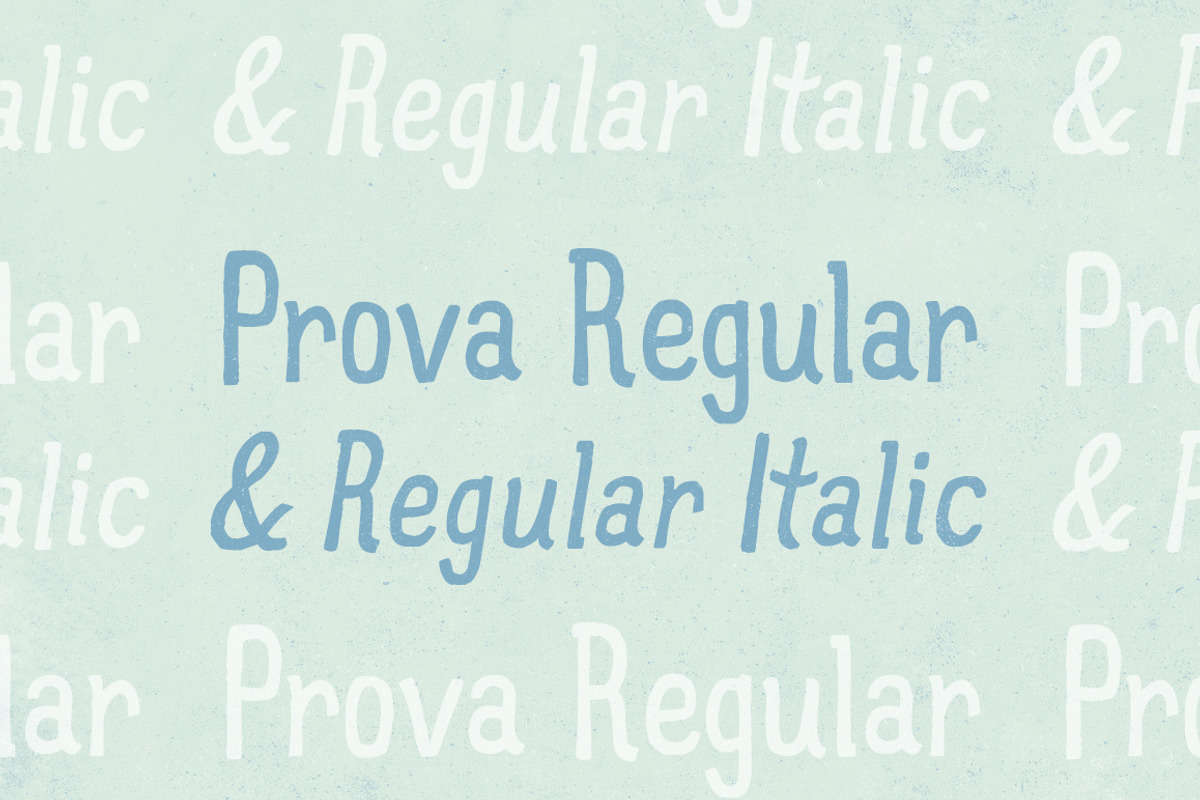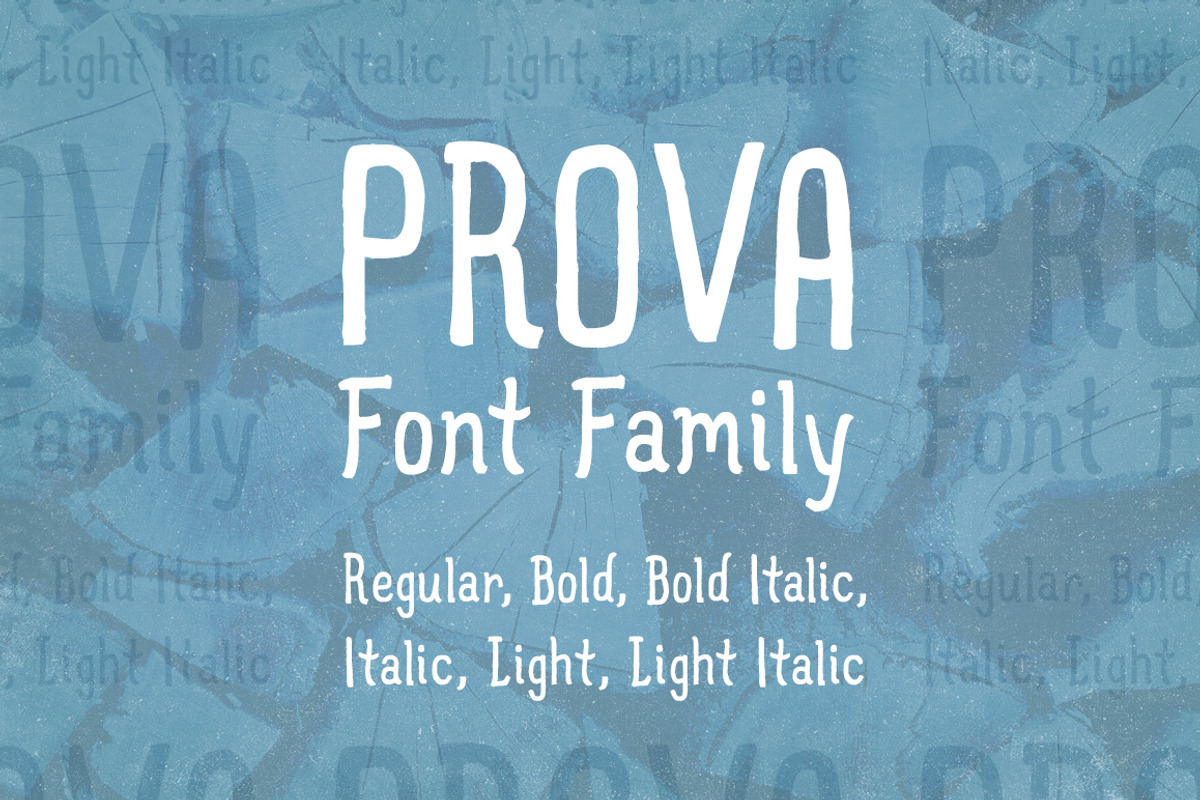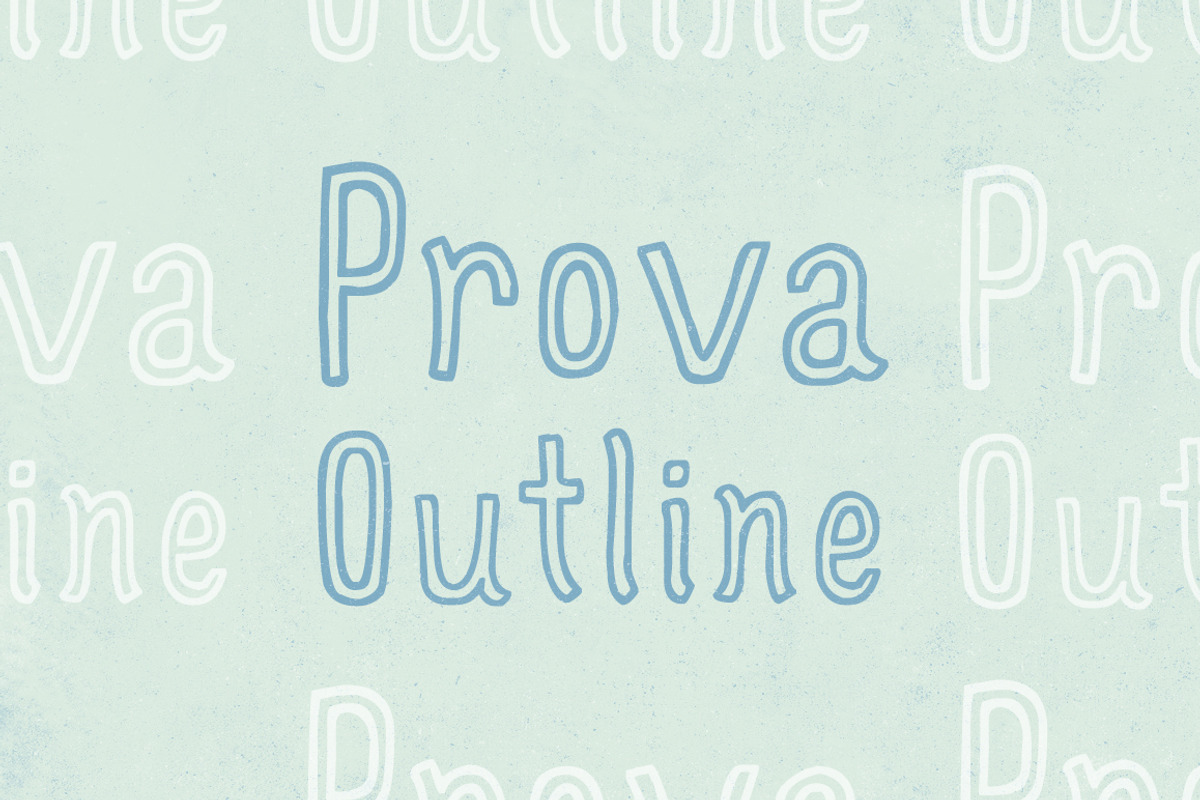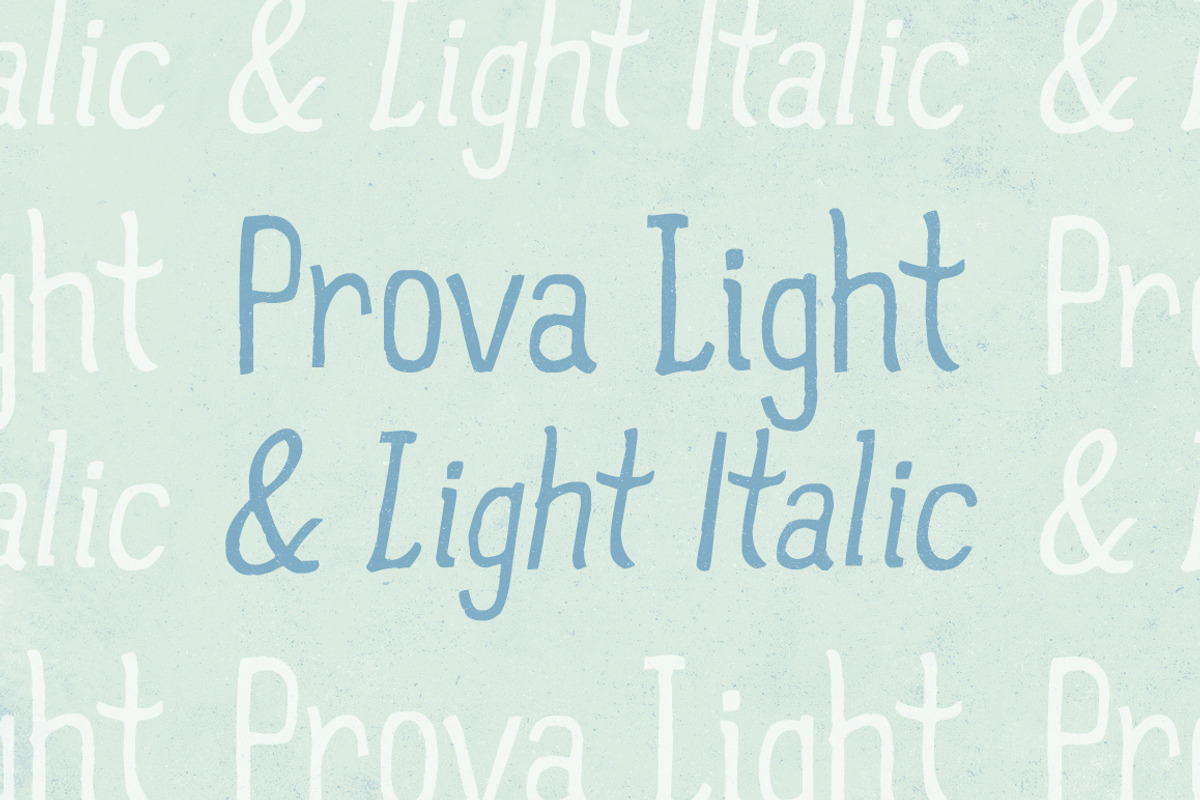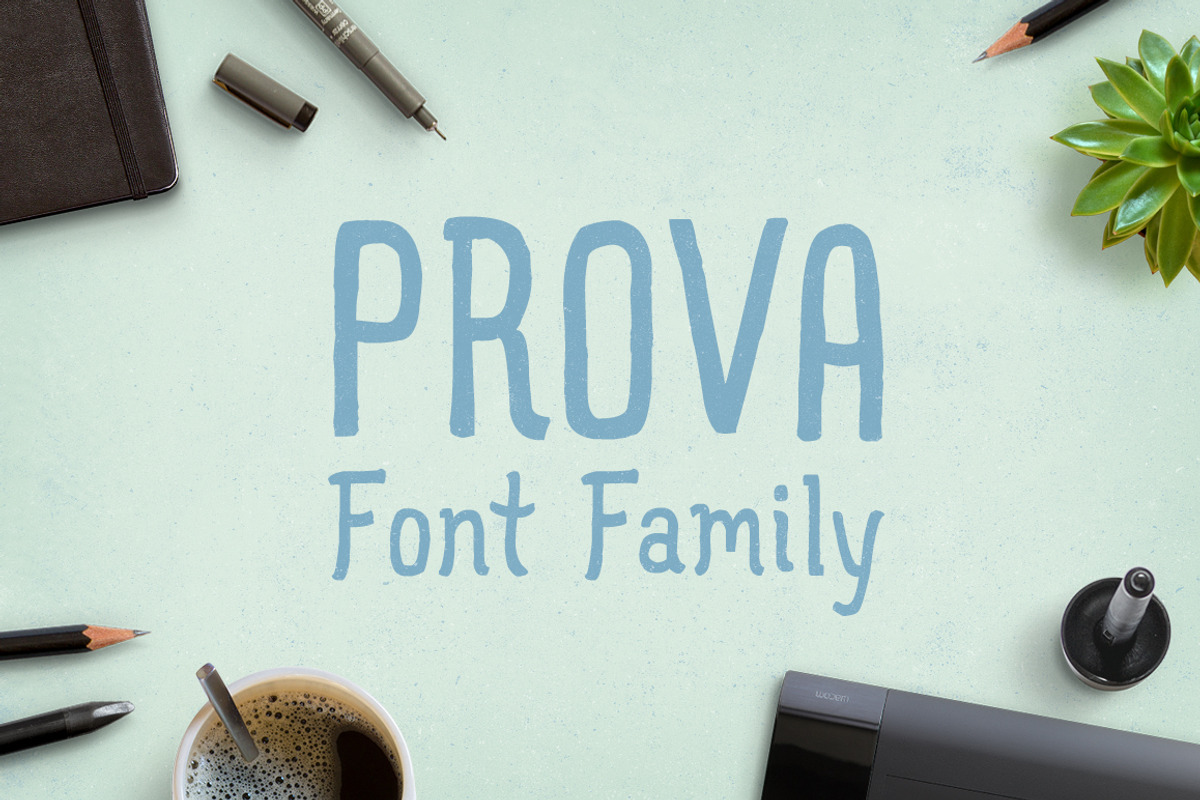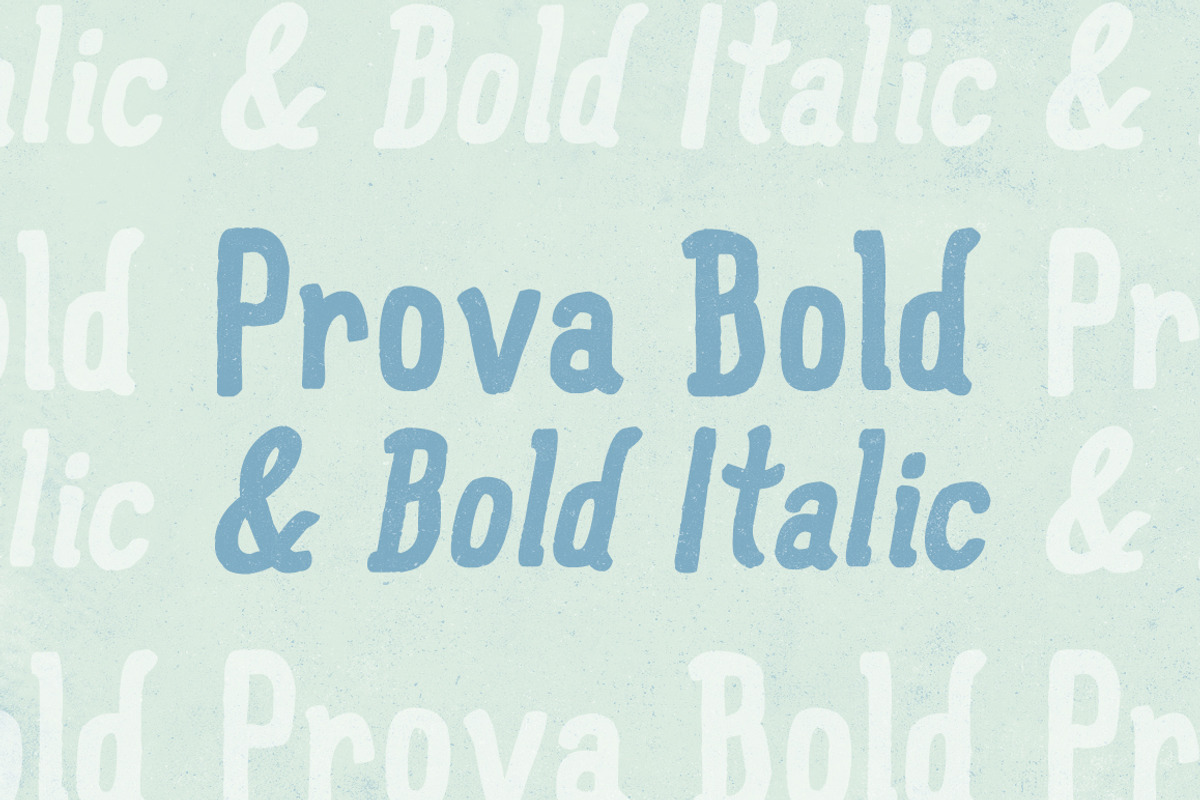
Prova 7-Font Family
Prova 7-Font Family by Satchel & Sage is a font selected for branding, posters, packaging, typography.
- Prova Font Family contains 7 font weights of Prova — a friendly, condensed hand-drawn typeface created to compliment illustration work or en
Why Prova 7-Font Family is worth a look
Prova 7-Font Family by Satchel & Sage fits naturally into Branding, posters, packaging, typography.